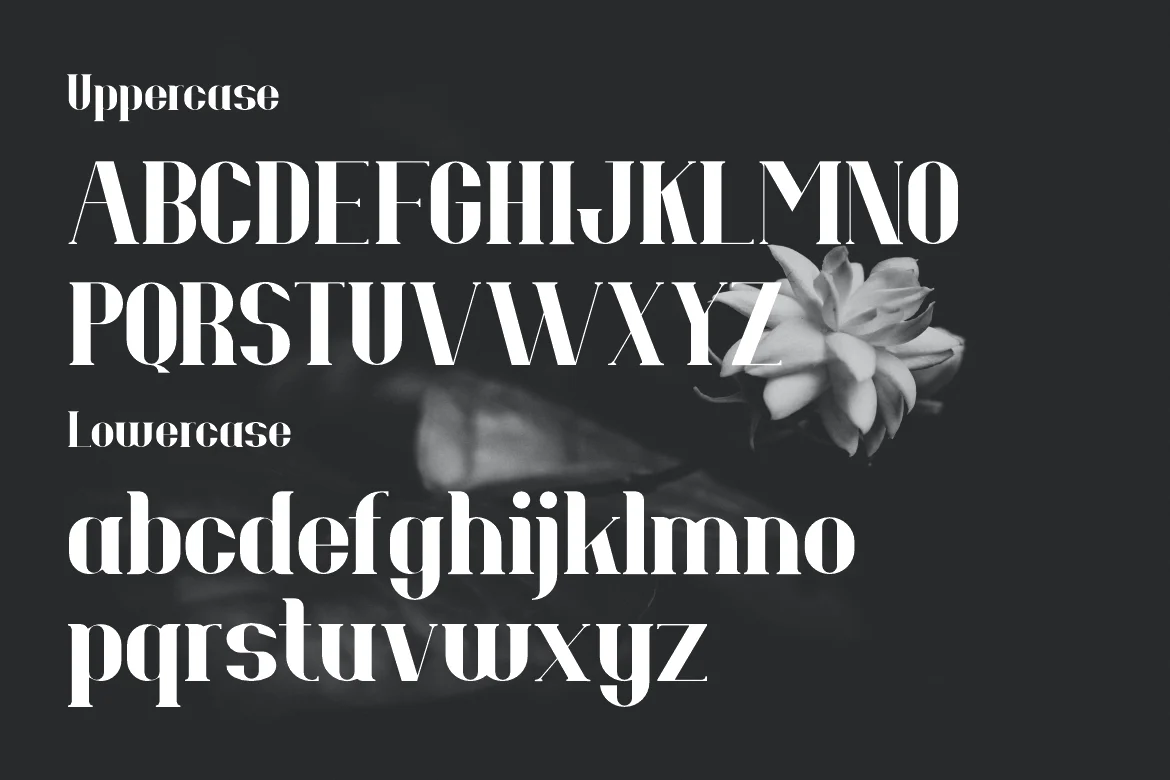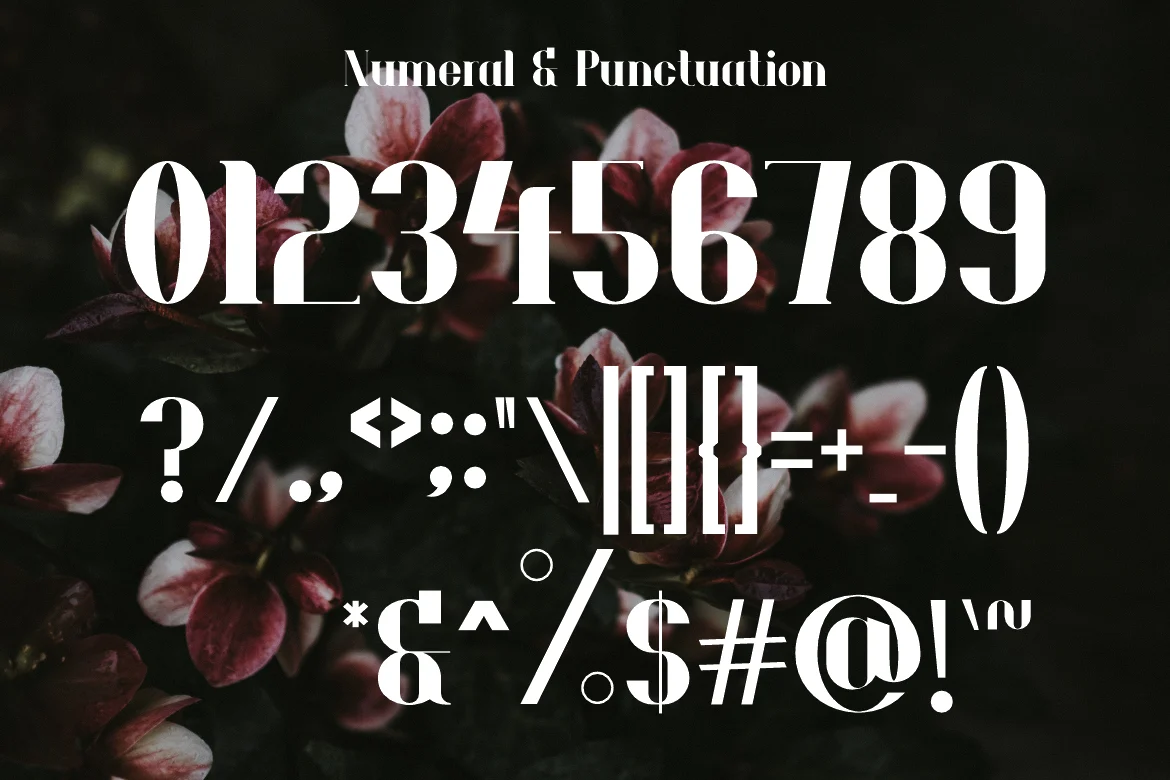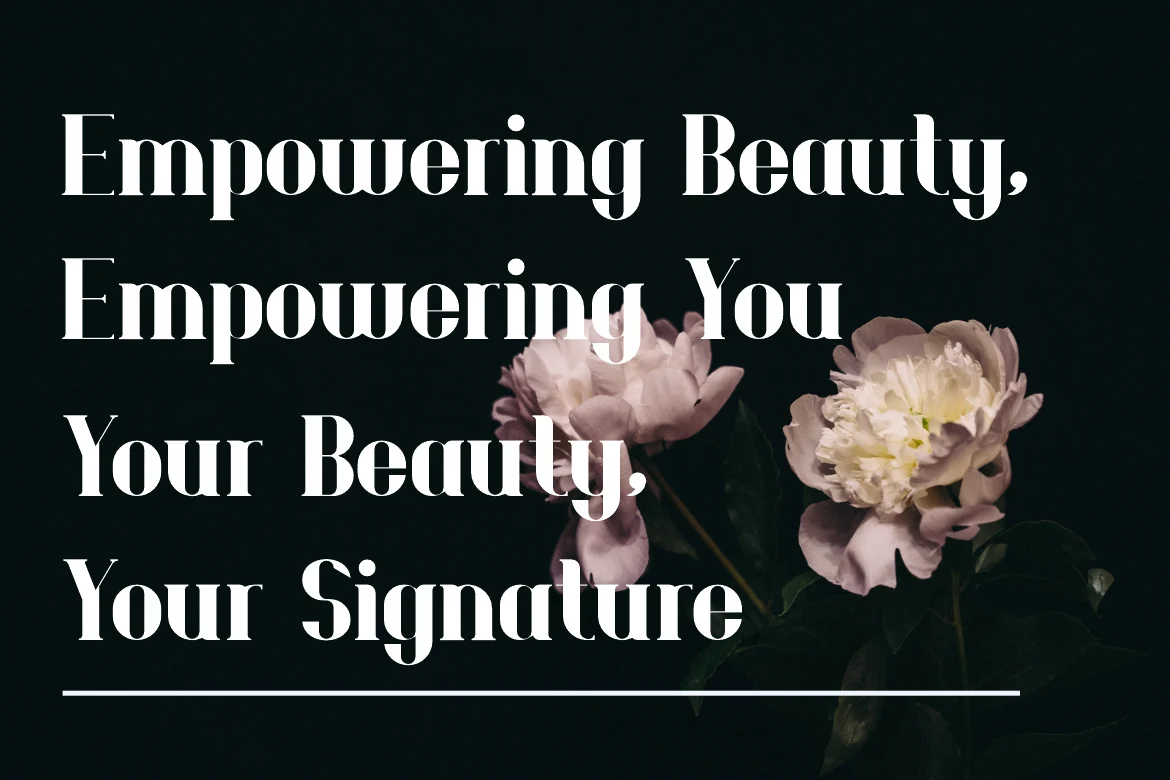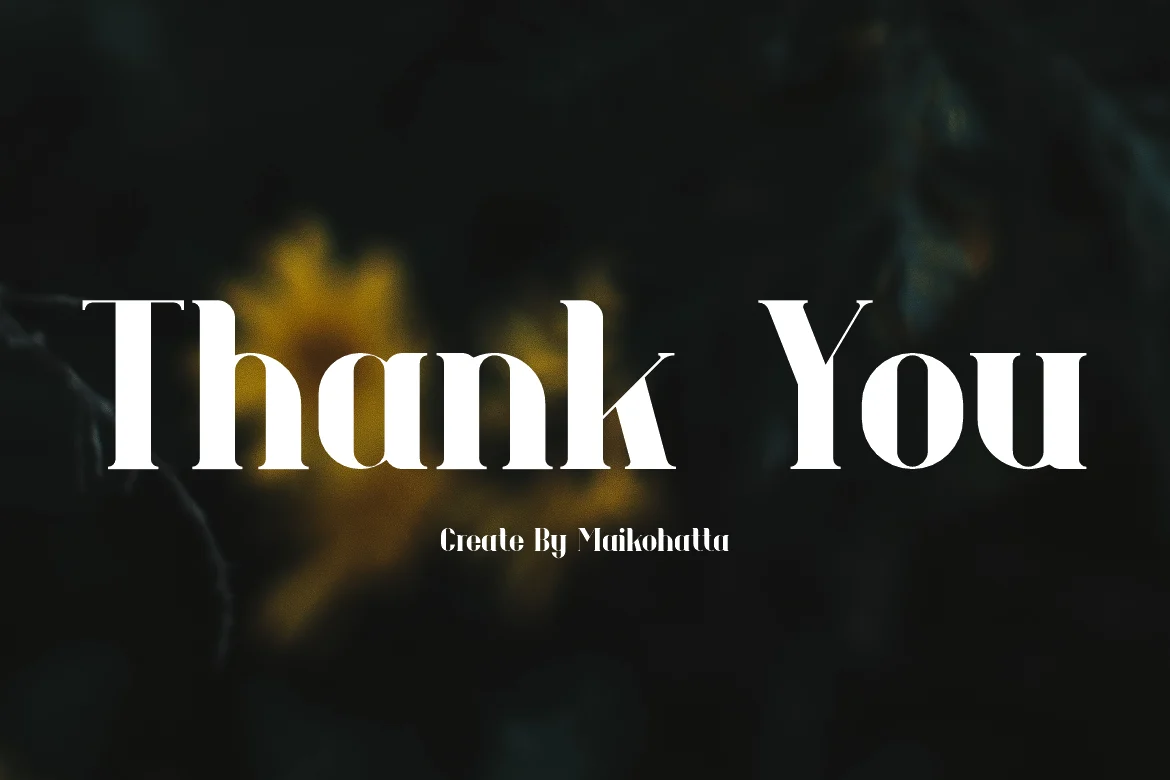
Bellavina – Modern Serif Font
Bellavina is a typographic masterpiece that harmonizes elegance and sharpness. Every letter within this font is meticulously designed, with a keen focus on balanced proportions and impeccable alignment. This font is well-suited for a variety of contexts, such as print design, promotional materials, or magazine layouts.